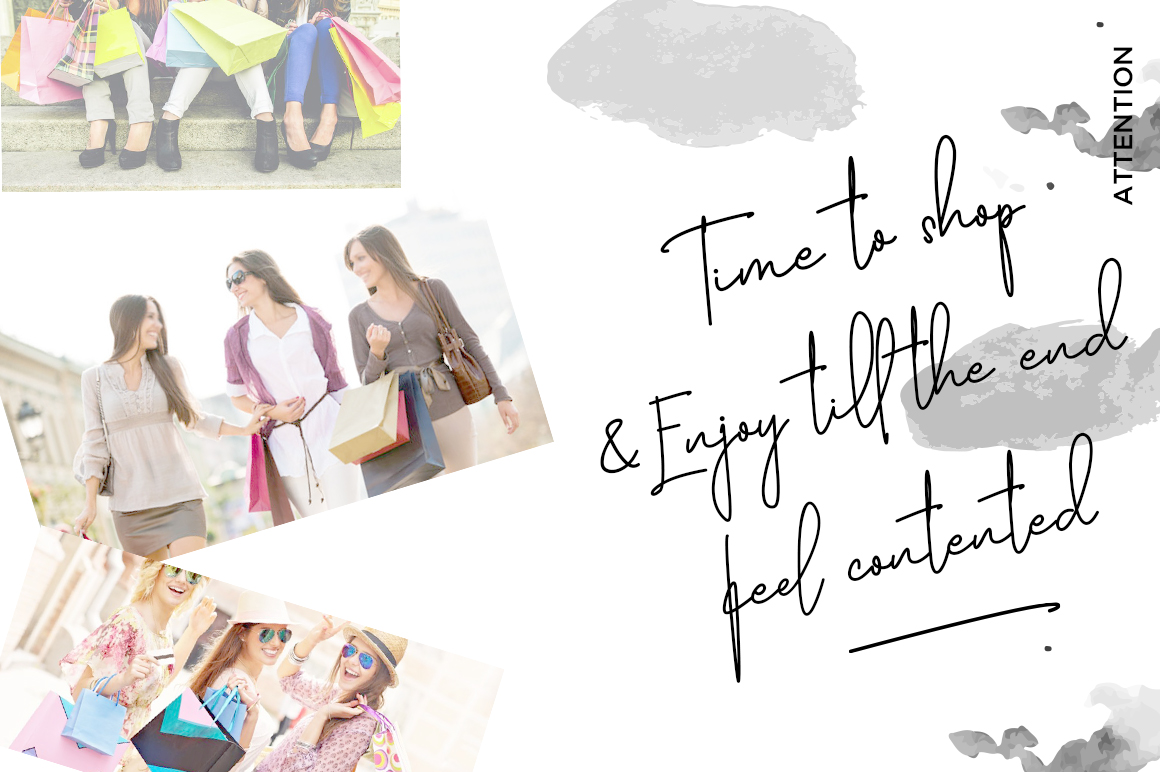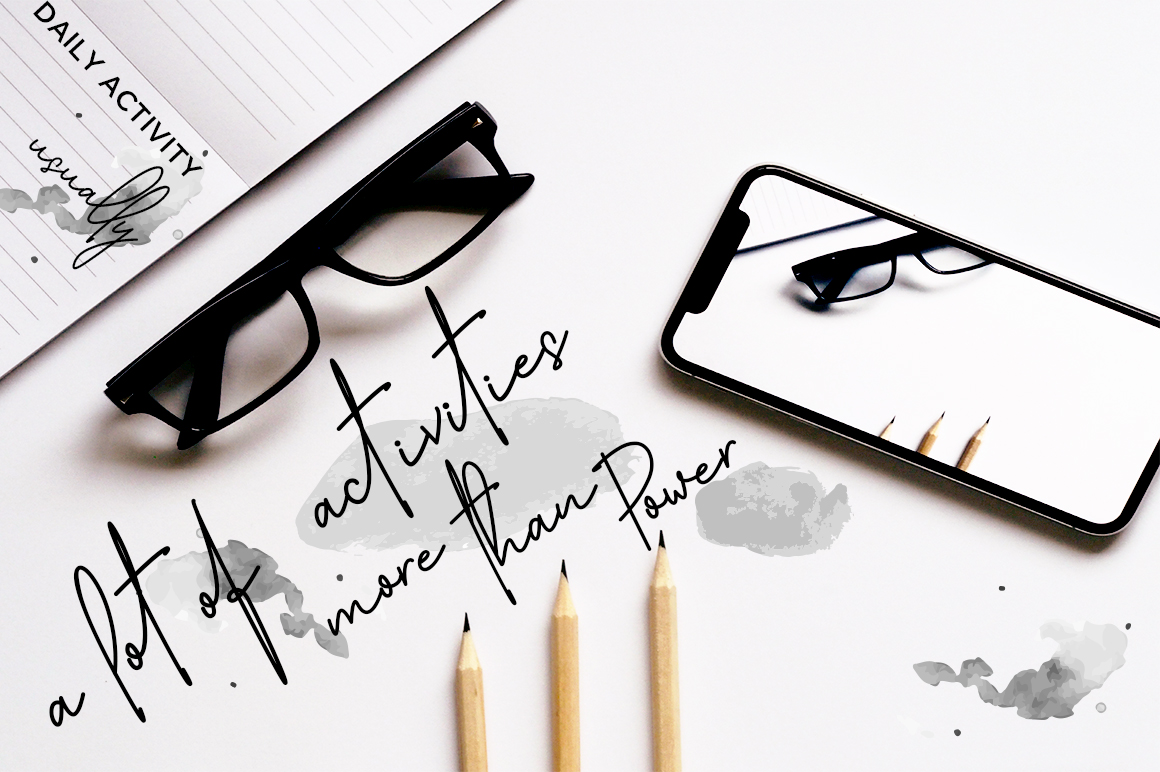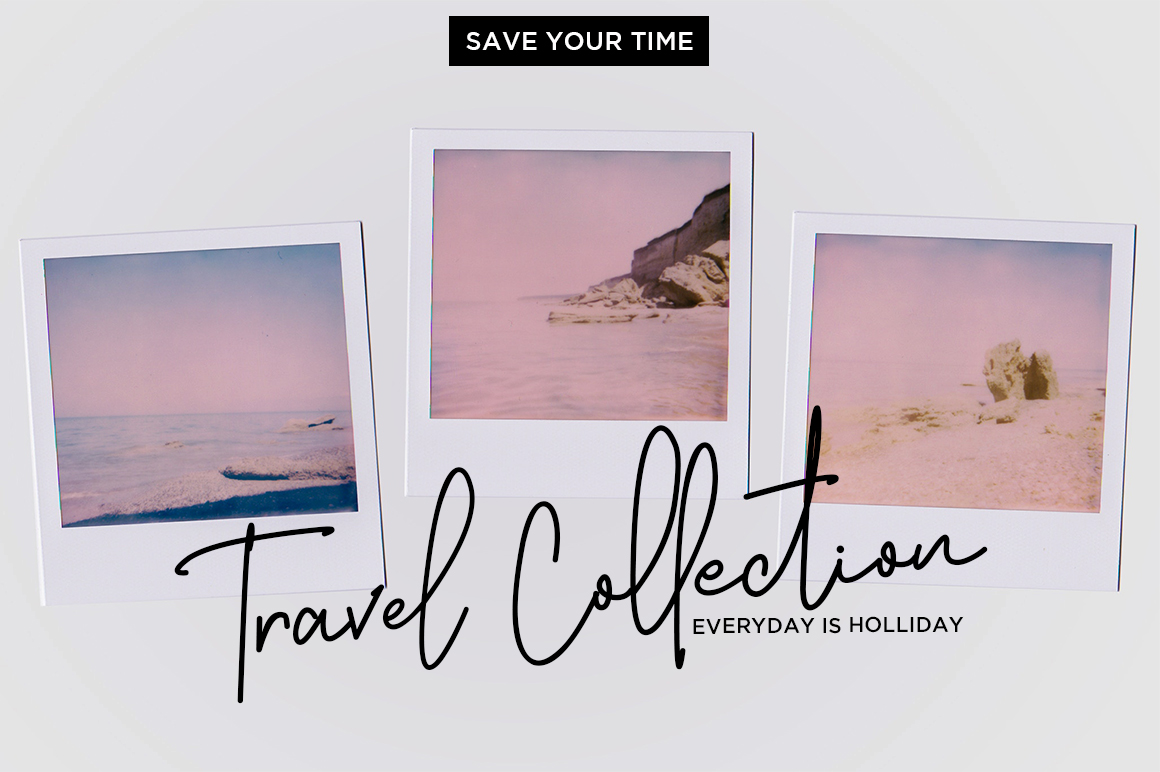
Introduction to Katty Pretty Font
Need some signature style with a sexy appeal.
Katty Pretty was created to look as close to a natural handwritten script as possible by including over 74 ligatures, and looks phenomenal in fasionable or brandable content in both digital and print scapes .
Key Features of Katty Pretty Font
Why Choose Katty Pretty Font?
Katty Pretty Font offers exceptional quality and versatility, making it a valuable addition to your design toolkit. Whether you’re creating for personal projects or commercial use, Katty Pretty Font delivers professional results.